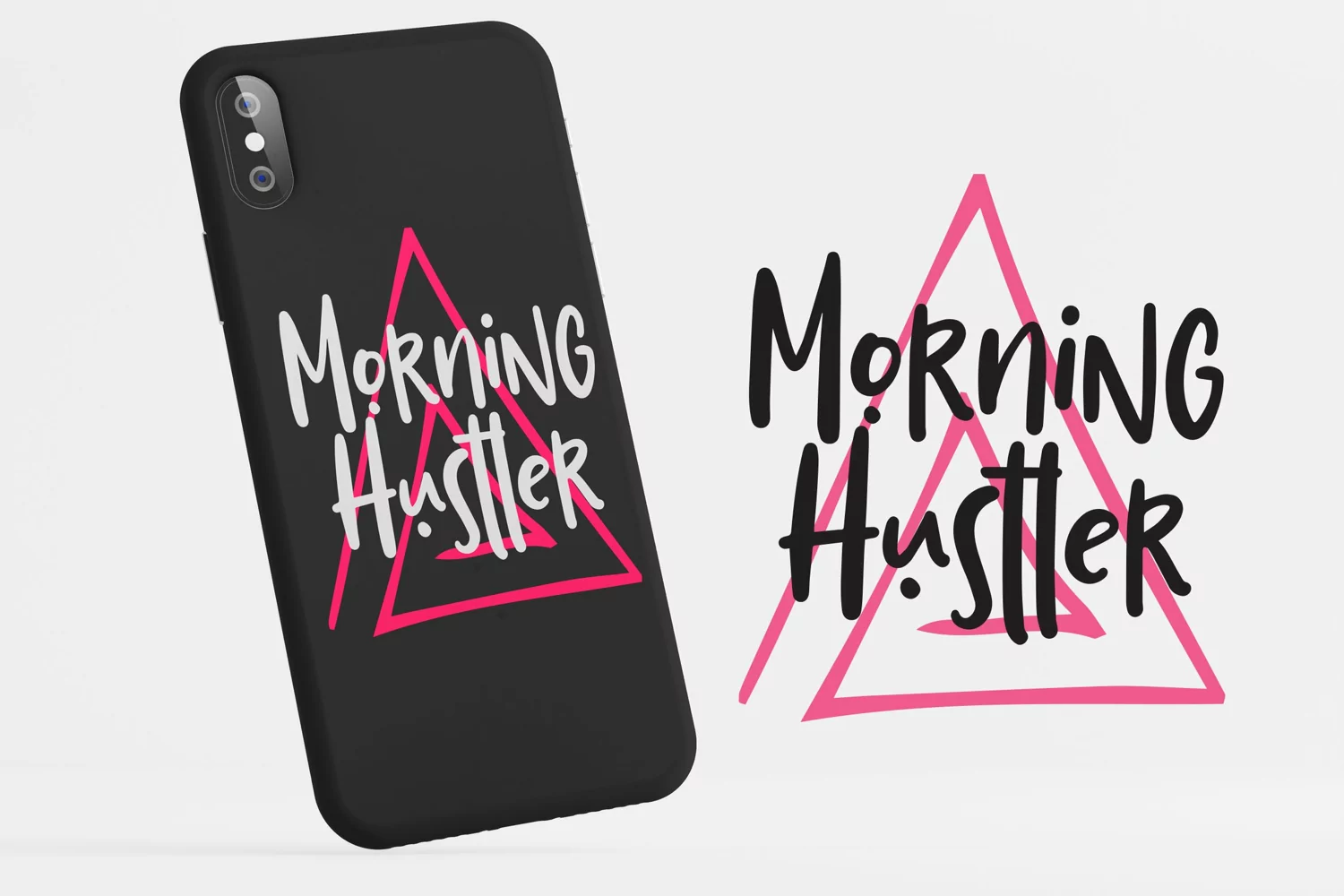
Carolina Butter - Unique Handrawn Font that contain lowercase, uppercase, symbol, and also support multi language. There’s a lot ligatures in this font. This Font also comes with ligatures, alternates and many more. this font suitable for fashion, branding, catalog and other design what you want.